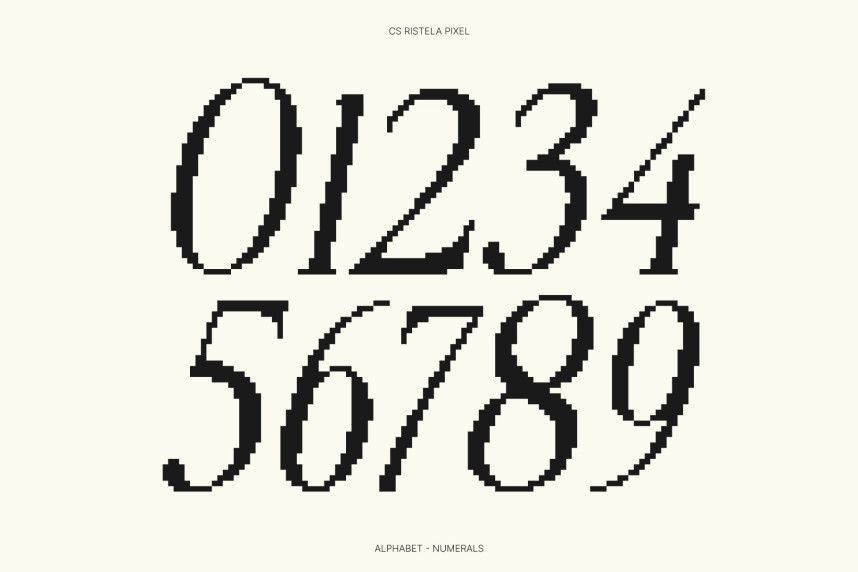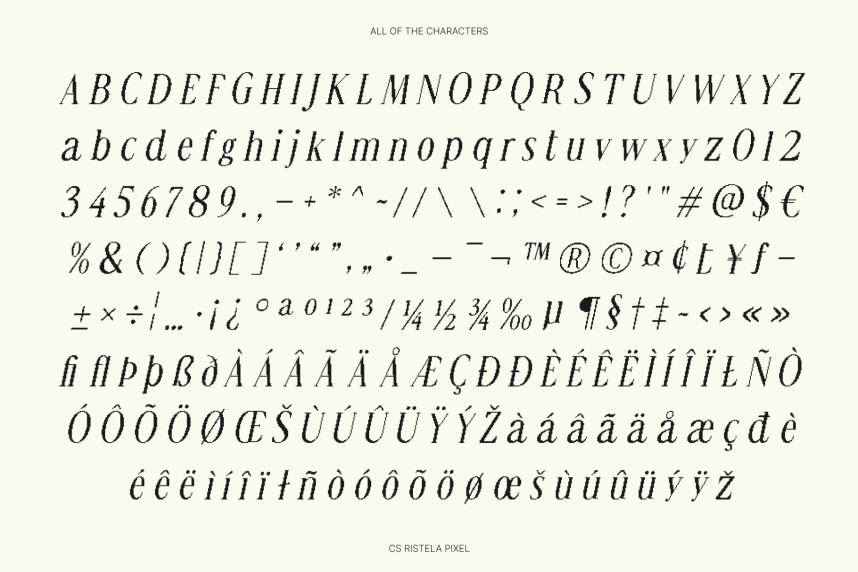
CS Ristela Pixel Font
CS Ristela Pixel Font – Timeless Elegance with Refined Pixel Proportions Classic Serif Elegance Reimagined in Pixel Style. This is an elegant serif font that blends refined curves and slightly condensed proportions with a distinctive pixel-inspired construction. Drawing inspiration from Renaissance-era letterforms, it preserves classical balance while introducing a digital edge. The result is a typeface that feels timeless yet visually refreshed for modern, screen-based design.